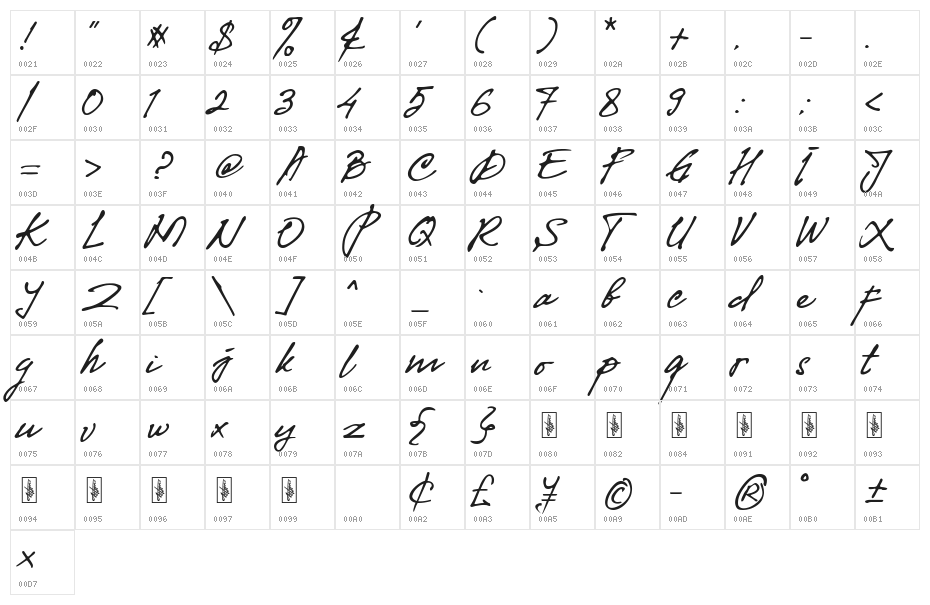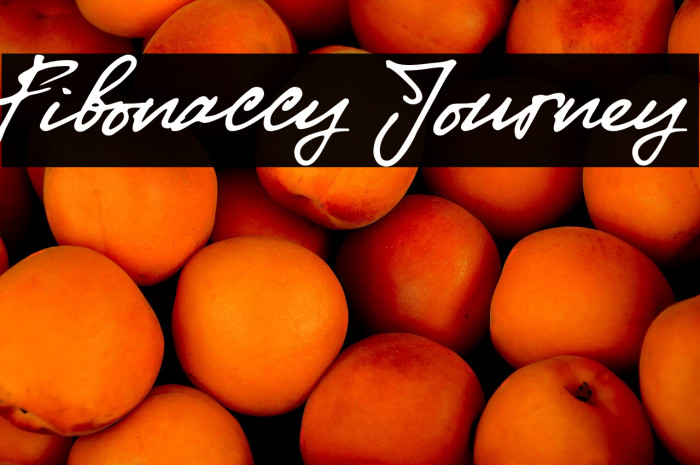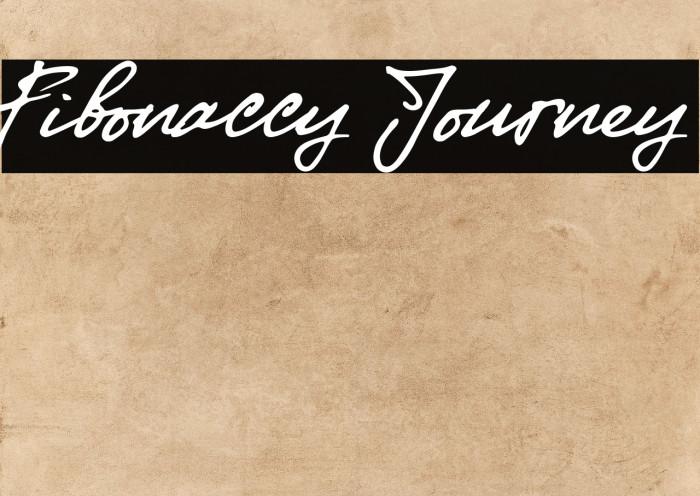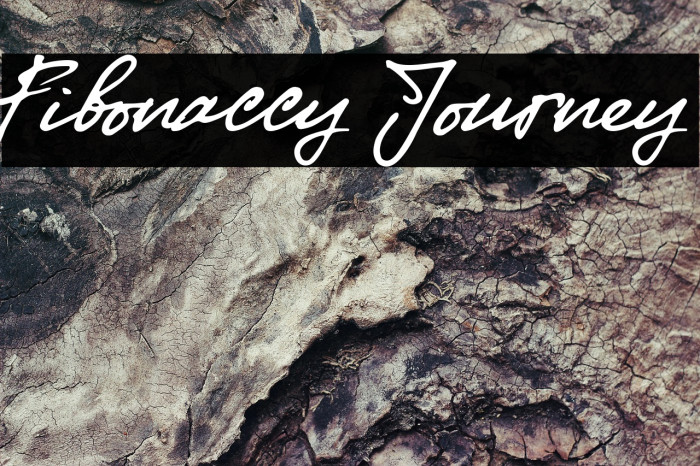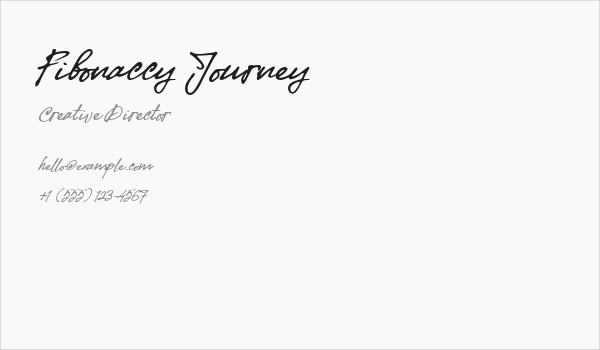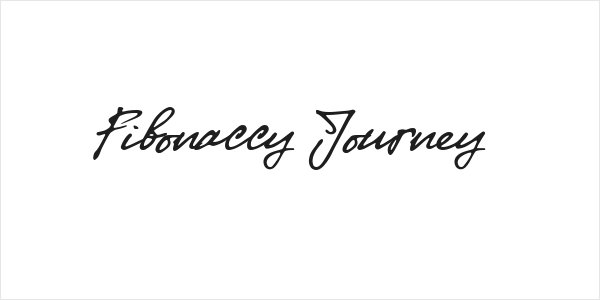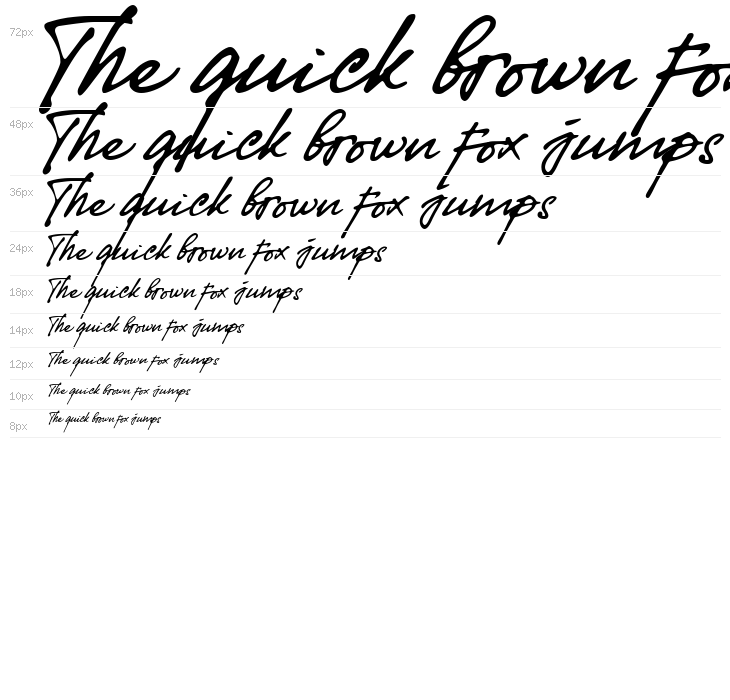
Fibonaccy Journey Font
Fibonaccy Journey Description
This font exudes a dynamic and fluid handwritten style, characterized by its elegant cursive strokes and smooth flow. The uppercase letters are bold and slightly slanted, giving a sense of movement and energy. The lowercase letters maintain a consistent style, with graceful loops and curves that enhance the script's overall aesthetic. Numbers and special characters are seamlessly integrated, maintaining the same fluidity and style as the alphabetic characters. The font's design is both artistic and legible, making it suitable for creative projects that require a personal touch.
Use CaseLogos, Invitations, Artistic projects
Proposed ProjectsIdeal for wedding invitations, personal branding, greeting cards, and artistic projects.